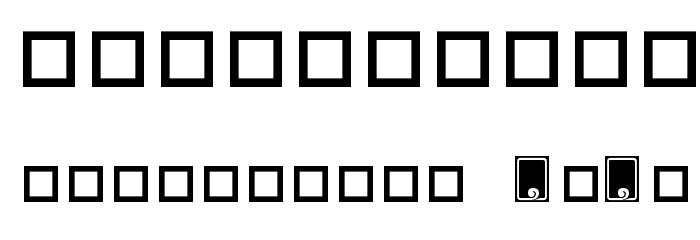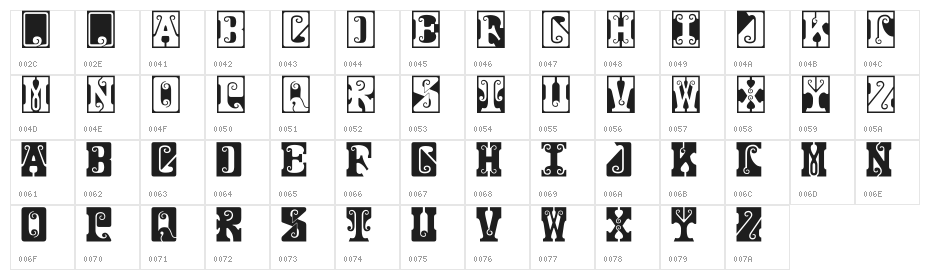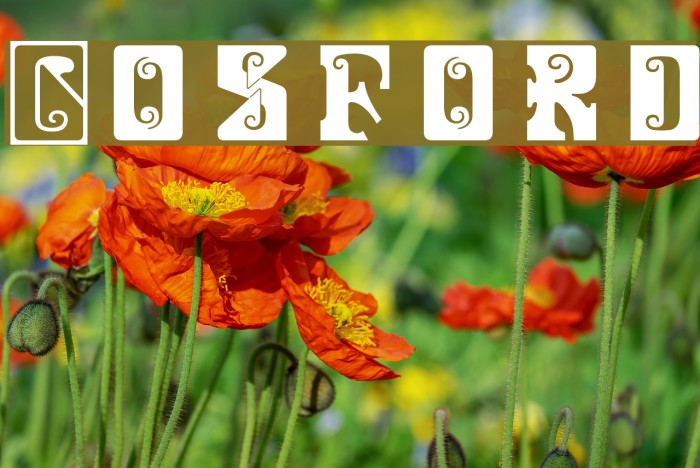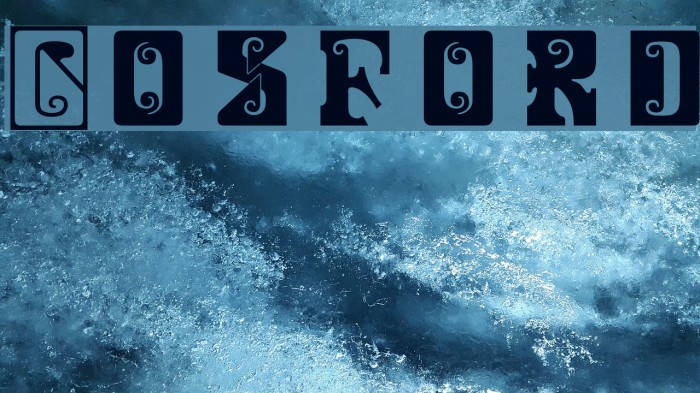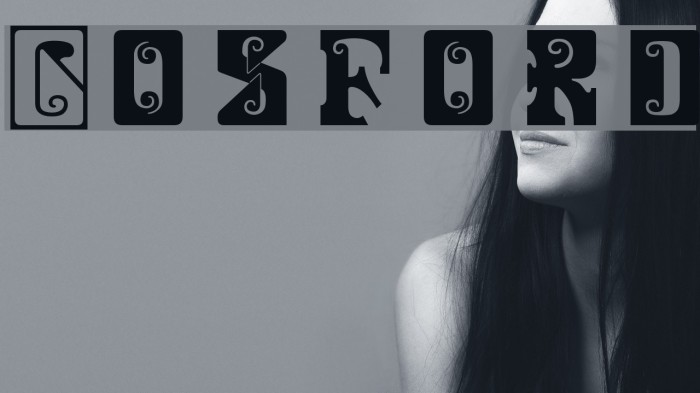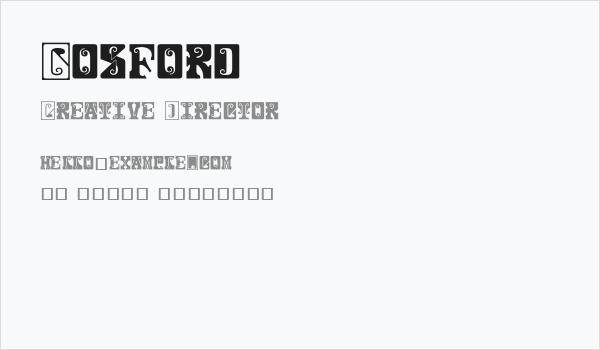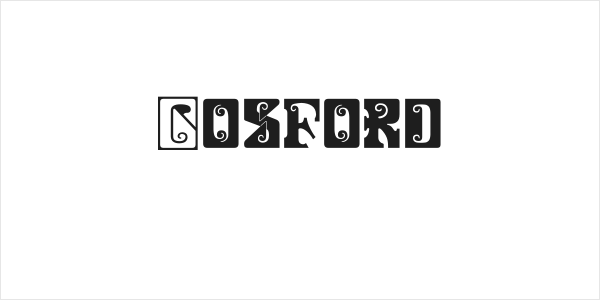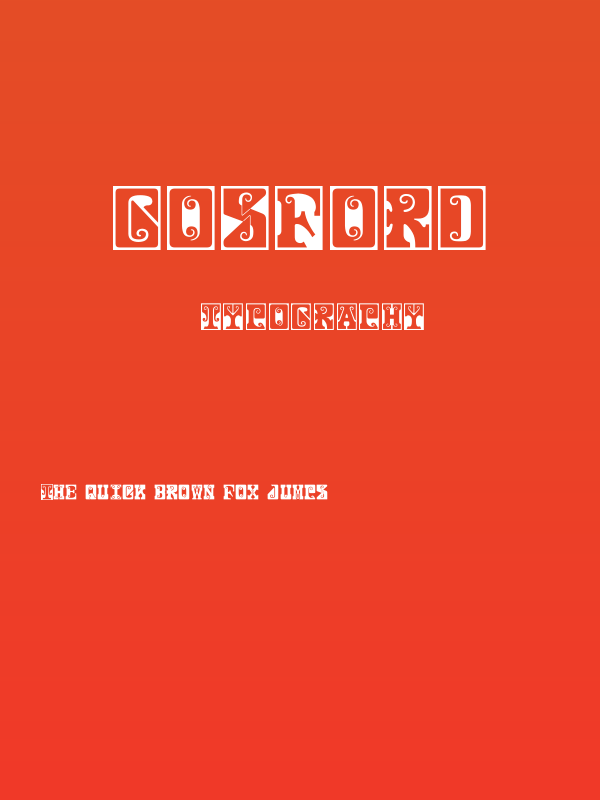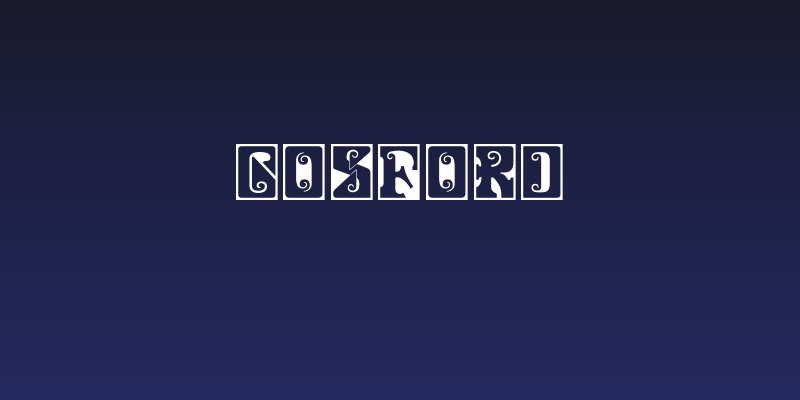
Gosford Font
Gosford Description
This font is a highly decorative and bold typeface that features intricate swirls and embellishments within each character. The uppercase letters are enclosed in square frames, adding a unique and structured appearance. The design is reminiscent of vintage or circus-style fonts, with a playful yet sophisticated flair. The characters are bold, with high contrast between thick and thin strokes, making them stand out prominently. The absence of lowercase letters and numbers suggests a focus on decorative use rather than practical text applications.
| Proposed Projects | Ideal for vintage-themed posters, circus or carnival event flyers, and decorative signage. |